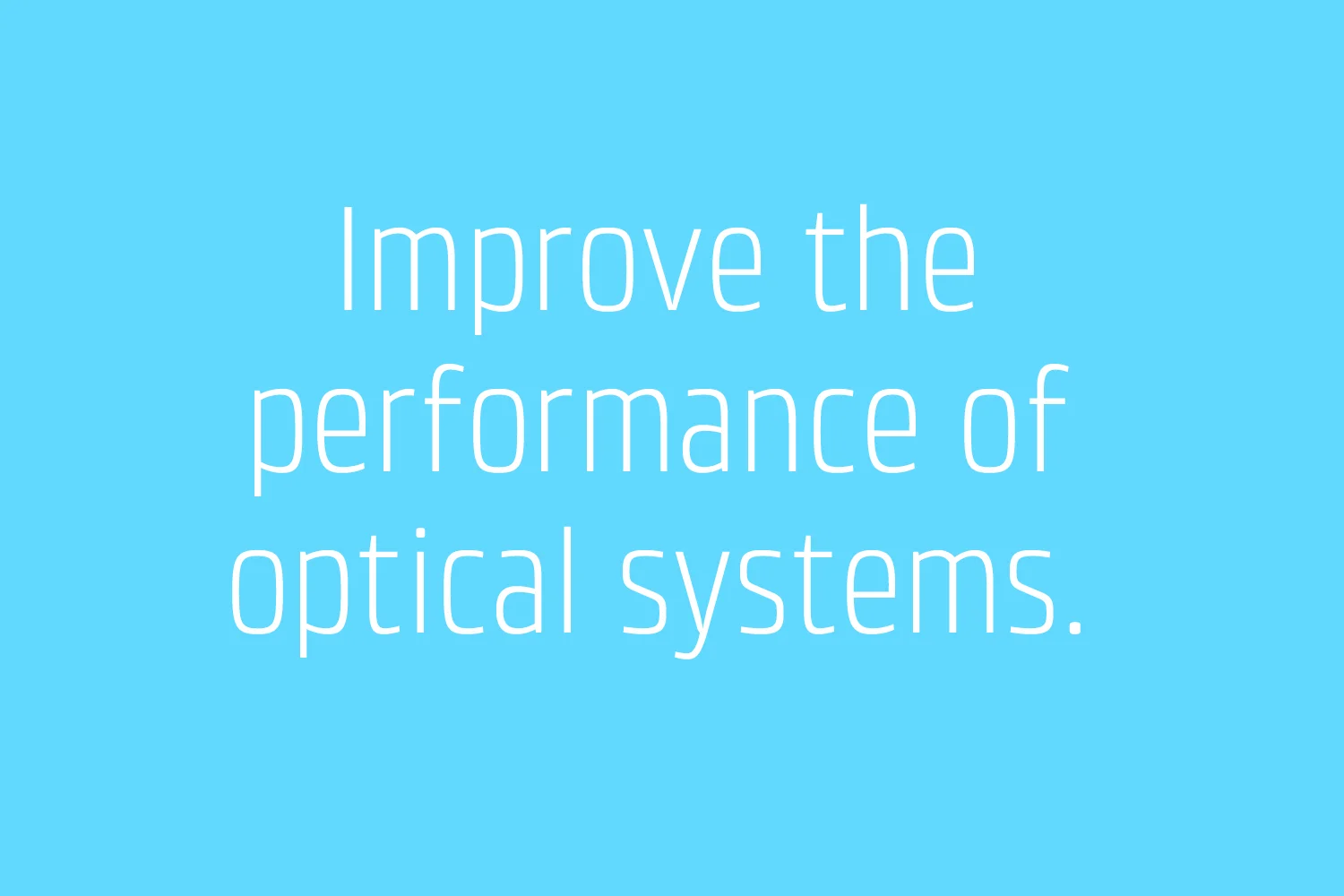
A geometric sans from HvD Fonts drawing on early twentieth-century European type traditions.
A clean geometric sans-serif from HvD Fonts, positioned within the lineage of European constructivist lettering. The family offers a range of weights with matching italics suited to editorial and branding contexts. Little specific detail was available from the foundry page at time of entry.
Klint is a geometric sans-serif in the tradition of early twentieth-century European geometric types, as suggested by its name referencing Hilma af Klint and the broader constructivist era.